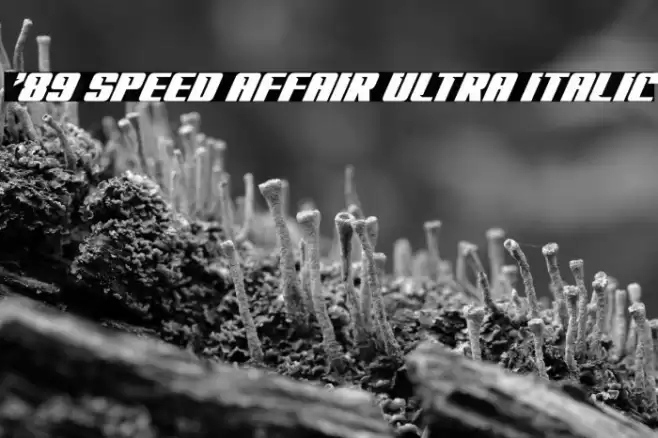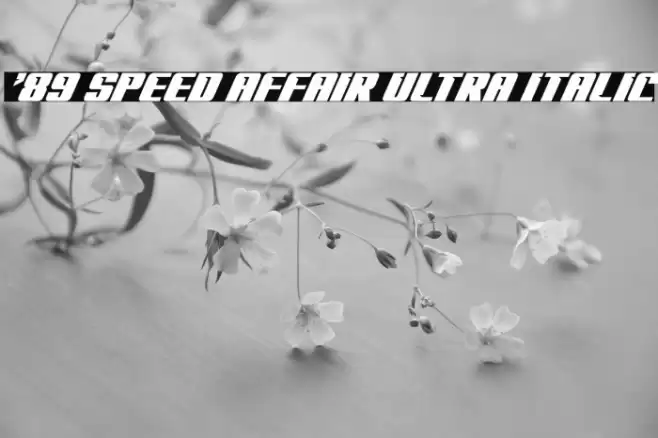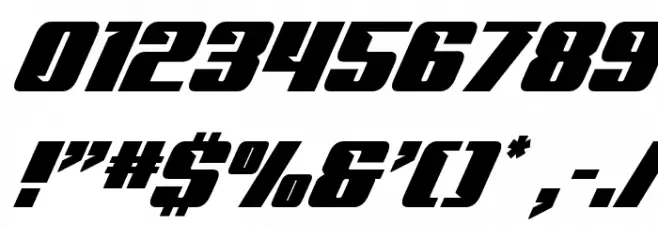
'89 Speed Affair Ultra Italic Font
'89 Speed Affair Ultra Italic Description
This font features a bold, italicized style with a strong, dynamic presence. The characters are slanted, giving a sense of speed and motion, which is enhanced by the thick, solid strokes. The design is modern and aggressive, making it suitable for projects that require a sense of urgency or energy. The uppercase and lowercase letters maintain a consistent style, with sharp angles and a slightly condensed form. The numerals and special characters follow the same bold and italicized theme, ensuring uniformity across all text elements.
A bold, italicized font with a dynamic and modern style from Regular fonts.
- Proposed Projects: Ideal for sports branding, automotive advertisements, dynamic posters, and any project needing a sense of speed and energy.